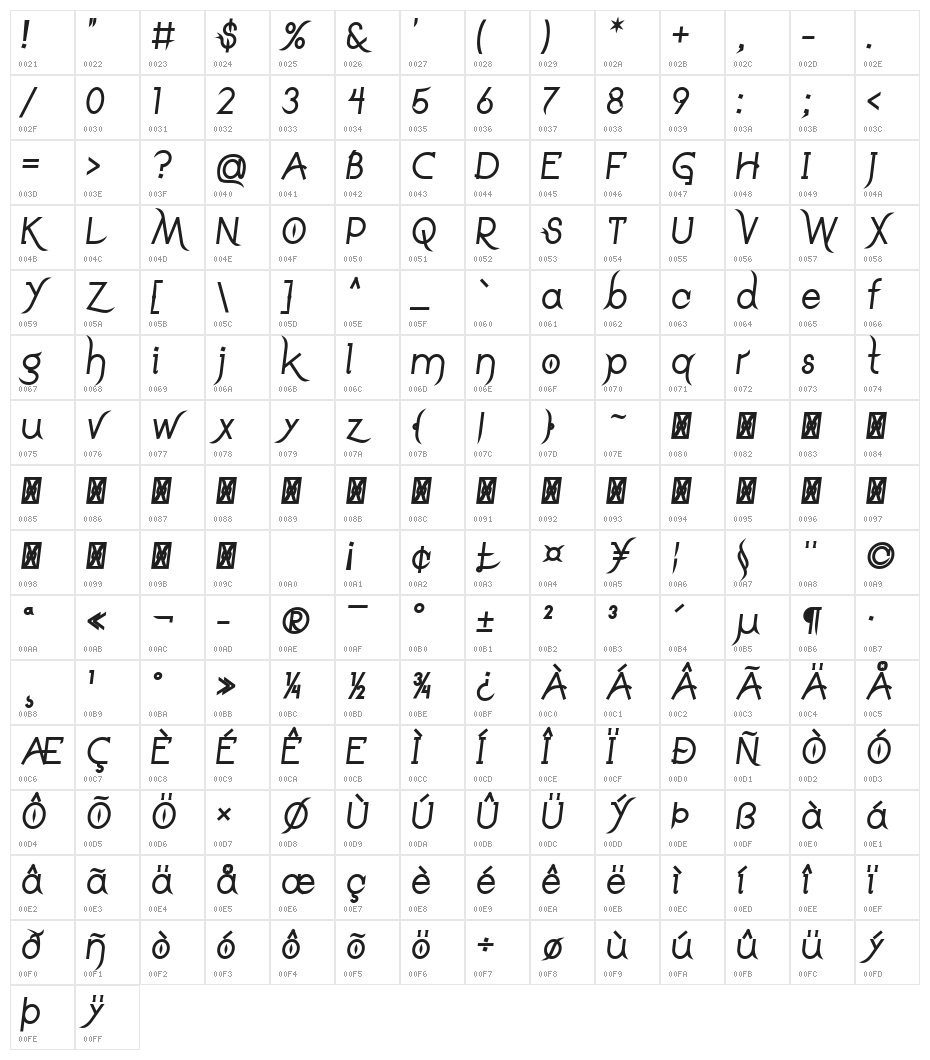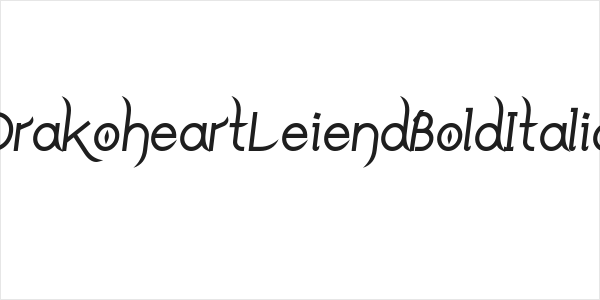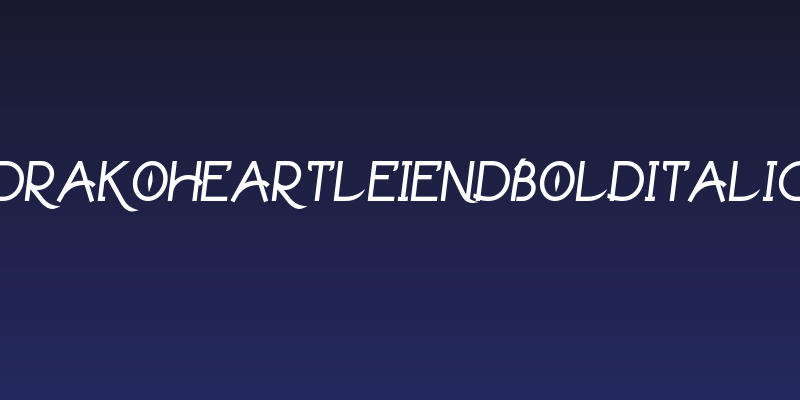
DrakoheartLeiendBoldItalic Font
DrakoheartLeiendBoldItalic Description
This font features a dynamic and flowing design, characterized by its bold and italicized style. The letters exhibit a unique blend of sharp angles and smooth curves, creating a sense of movement and energy. The uppercase letters are particularly striking, with distinctive flourishes and a slightly condensed form. The lowercase letters maintain a consistent style, with some characters like 'g' and 'y' having elongated descenders that add to the font's elegance. The numerals are clear and bold, ensuring readability. Special characters are well-integrated, maintaining the overall aesthetic of the font.